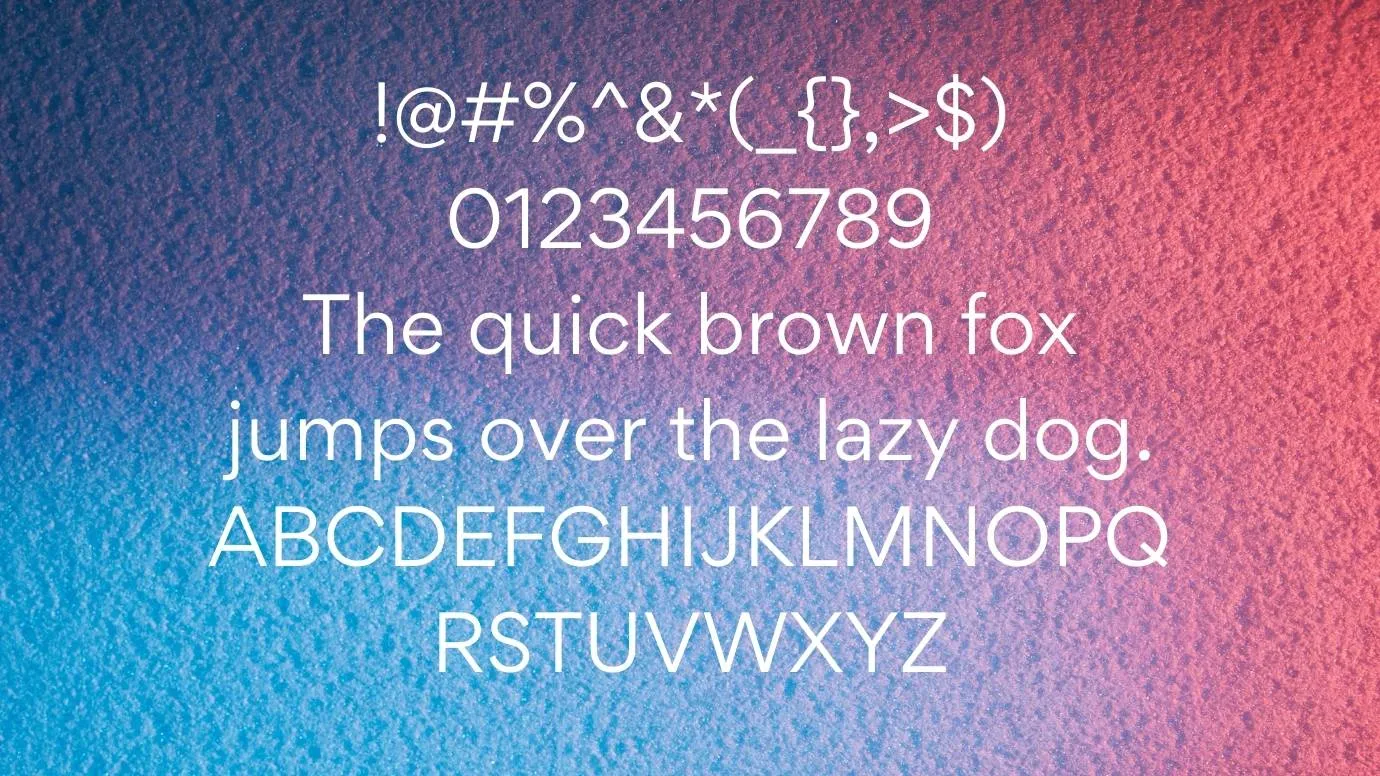
The classy style Gordita Font was designed by one famous font designer Thomas Gillett. He is an Australian designer who made it carefully in 2016. It comes in
Today we are going to discuss one of the stunning sans-serif Gordita Font. It has great weight and a unique style that can be used in many amazing projects. Its texture has similarities to the Futura Book font and Gotham Font. Many designers used this typeface in international projects and got huge appreciation from clients.
The classy style Gordita Font was designed by one famous font designer Thomas Gillett. He is an Australian designer who made it carefully in 2016. It comes in small letters, capital letters, symbols, numbers, and punctuation.
This stylish and modern typeface has 5 attractive weights with a complete set of characters. It has a thin and bold sans-serif typeface that can be used in noticeable places. It is available in the OTF and TTF format that can be installed in every type of window.
Furthermore, it has a pairing function through which you can pair it with quostige sans serif font and make appealing combinations like Spotify Font. This elegant texture typeface supports many international languages. It is perfect for CSS and Adobe software.
It is a modern style typeface that has a sans-serif font family. It comes in a great texture with 5 stunning styles.
The classy style Gordita Font was designed by one famous font designer Thomas Gillett.